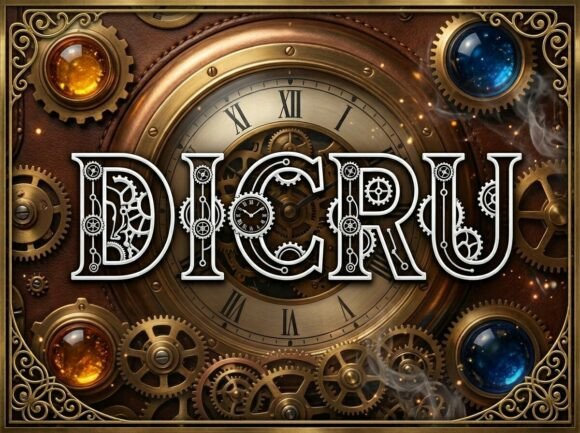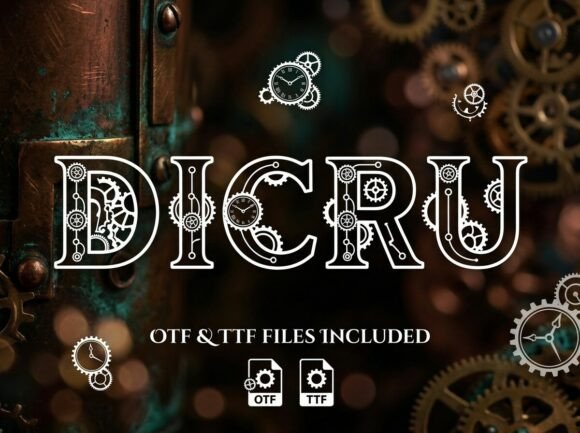
Introducing Dicru Font: A Stunning Decorative Display Font
Are you tired of using the same old fonts for your designs? Do you want to add a touch of uniqueness and creativity to your projects? Look no further than Dicru Font, a breathtaking decorative display font that’s sure to turn heads. In this article, we’ll dive into the features and benefits of Dicru Font, and explore how it can elevate your designs to the next level.
Dicru Font is a stunning decorative display font designed to be the center of attention. With its unique artistic elements and strong visual personality, this font is perfect for creators who want to break away from the ordinary. Whether you’re working on a bold headline, artistic logo, or creative packaging, Dicru Font is the perfect choice.
Dicru Font is versatile enough for a variety of creative projects, including:
- Bold Headlines: Make a statement with Dicru Font’s bold and eye-catching lettering.
- Artistic Logos: Create a unique and memorable logo that stands out from the crowd.
- Creative Packaging: Add a touch of elegance and sophistication to your packaging designs.
Why Choose Dicru Font?
So why choose Dicru Font over other decorative display fonts? Here are just a few reasons:
- Unique Artistic Elements: Dicru Font features unique artistic elements that set it apart from other fonts.
- Strong Visual Personality: This font has a strong visual personality that demands attention.
- Professional and Polished Finish: Despite its bold and decorative nature, Dicru Font maintains a professional and polished finish.
Tips for Using Dicru Font
Here are a few tips for getting the most out of Dicru Font:
- Use it sparingly: Due to its bold and decorative nature, it’s best to use Dicru Font sparingly to avoid overwhelming your design.
- Pair it with a neutral font: Pair Dicru Font with a neutral font to create visual interest and balance.
- Experiment with colors: Dicru Font looks great in a variety of colors, so don’t be afraid to experiment and find the perfect hue for your design.
In conclusion, Dicru Font is a stunning decorative display font that’s perfect for creators who want to add a touch of uniqueness and creativity to their designs. With its unique artistic elements, strong visual personality, and professional and polished finish, this font is sure to elevate your designs to the next level. So why wait? Purchase Dicru Font today and start creating stunning designs that demand attention!